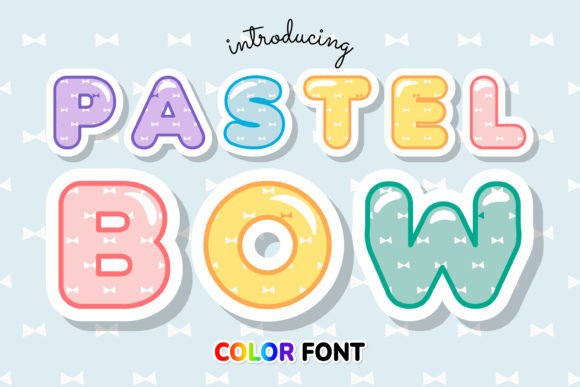
Let your creativity shine with Pastel Bow, a splendid collection of fonts that captivates with its charming bowtie pattern. Designed by JUSTTYPE, Pastel Bow takes you on a whimsical journey of colors and aesthetics, transforming your creative visions into breathtaking realities.
Unleash your inner artist and embrace the endless possibilities Pastel Bow offers. From custom designs to DIY crafts, this font family is your perfect companion. Whether you're a seasoned designer or just starting your creative journey, Pastel Bow's intuitive and user-friendly design makes it accessible to all.
Indulge in the versatility of Pastel Bow. Its playful and captivating style adds a touch of magic to your designs, making them stand out from the crowd. Explore the limitless applications of Pastel Bow, from invitations and cards to logos and social media posts.
With Pastel Bow, you'll never have to compromise on quality. This color font (Opentype-SVG) is meticulously crafted to ensure crisp, vibrant results. Compatible with popular software like PhotoShop, Illustrator, Silhouette, and Inkscape, Pastel Bow seamlessly integrates into your design workflow.
Embrace Pastel Bow today and embark on a creative adventure like no other!